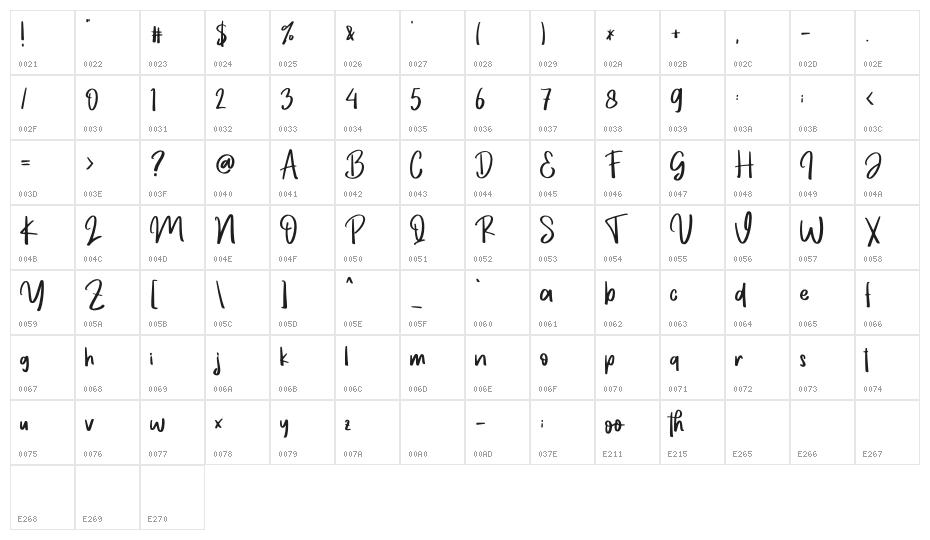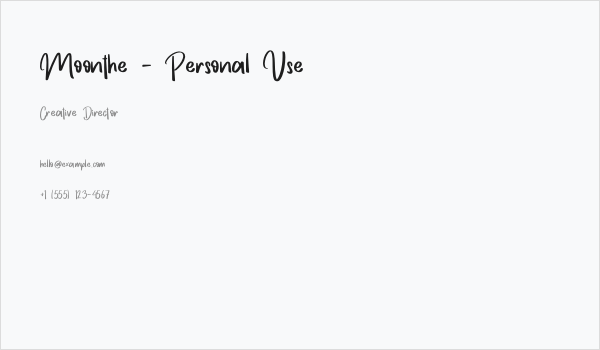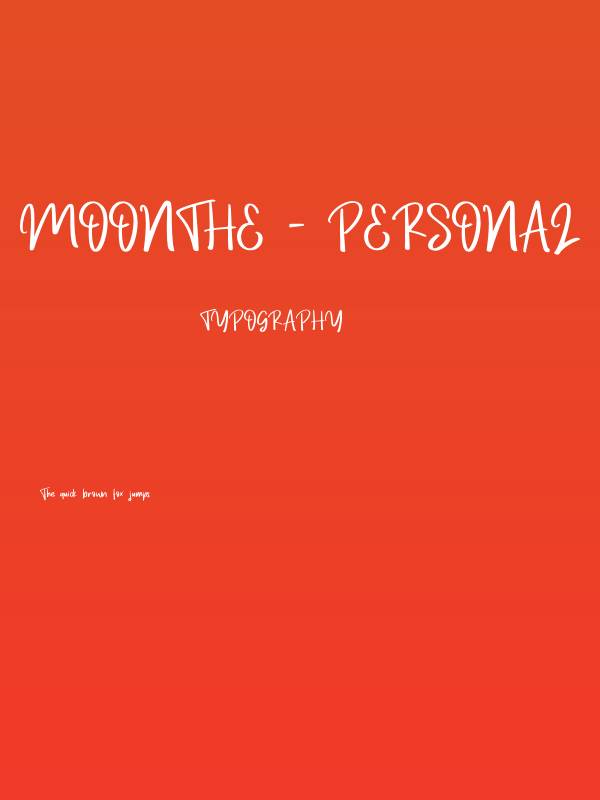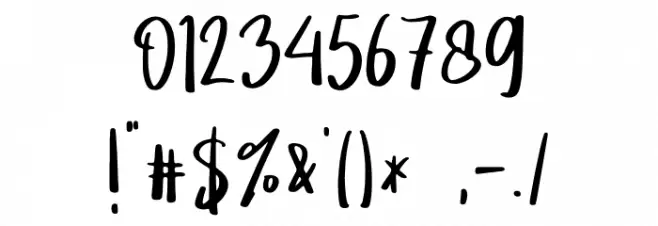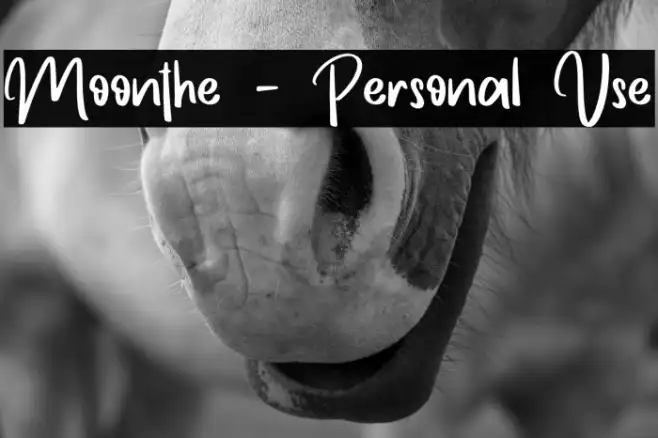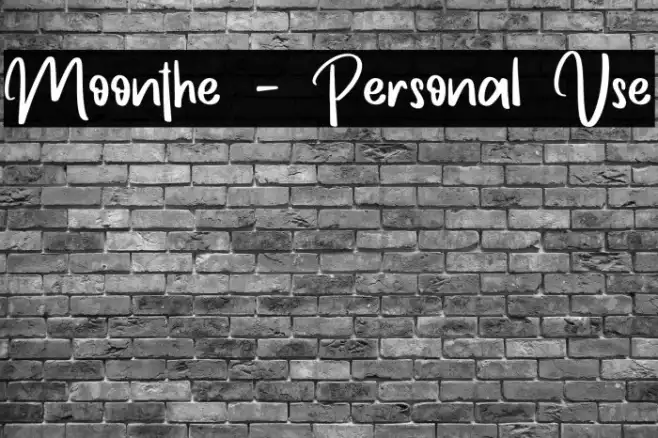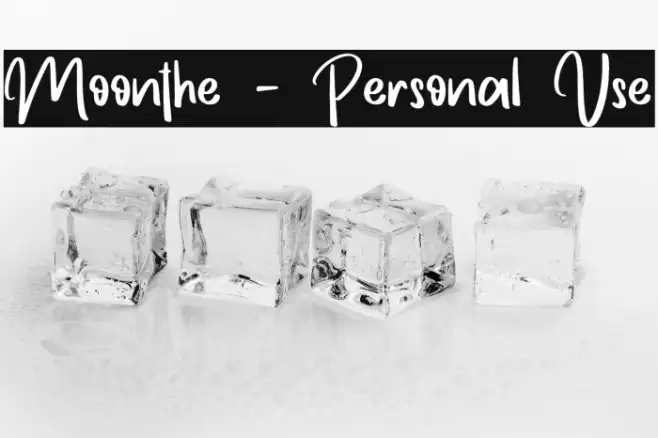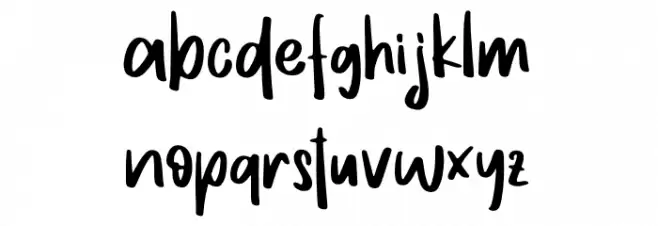
Moonthe - Personal Use Font
Moonthe - Personal Use Description
This font features a playful and casual handwritten style, characterized by its flowing and slightly irregular letterforms. The uppercase letters are bold and prominent, with a slight slant that adds to the informal feel. The lowercase letters maintain a consistent style, with rounded edges and a friendly appearance. Numbers and special characters are designed to match the overall aesthetic, ensuring a cohesive look across all text. The font's organic and lively nature makes it suitable for projects that require a personal touch.
| Proposed Projects | Ideal for greeting cards, invitations, personal branding, and social media graphics. |